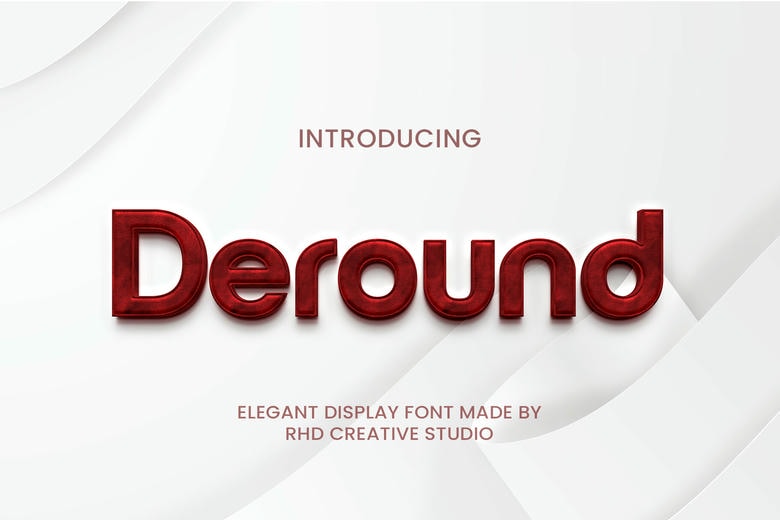
Deround Font
Deround is a sleek and refined display font that combines soft curves with bold structure, creating a modern yet approachable aesthetic. Its smooth, rounded letterforms are perfect for branding, editorial headlines, logo designs, and high-end packaging.
With a professional finish and elegant simplicity, Deround effortlessly balances sophistication and readability, making it a standout choice for contemporary design projects.
Deround Sans Serif Font